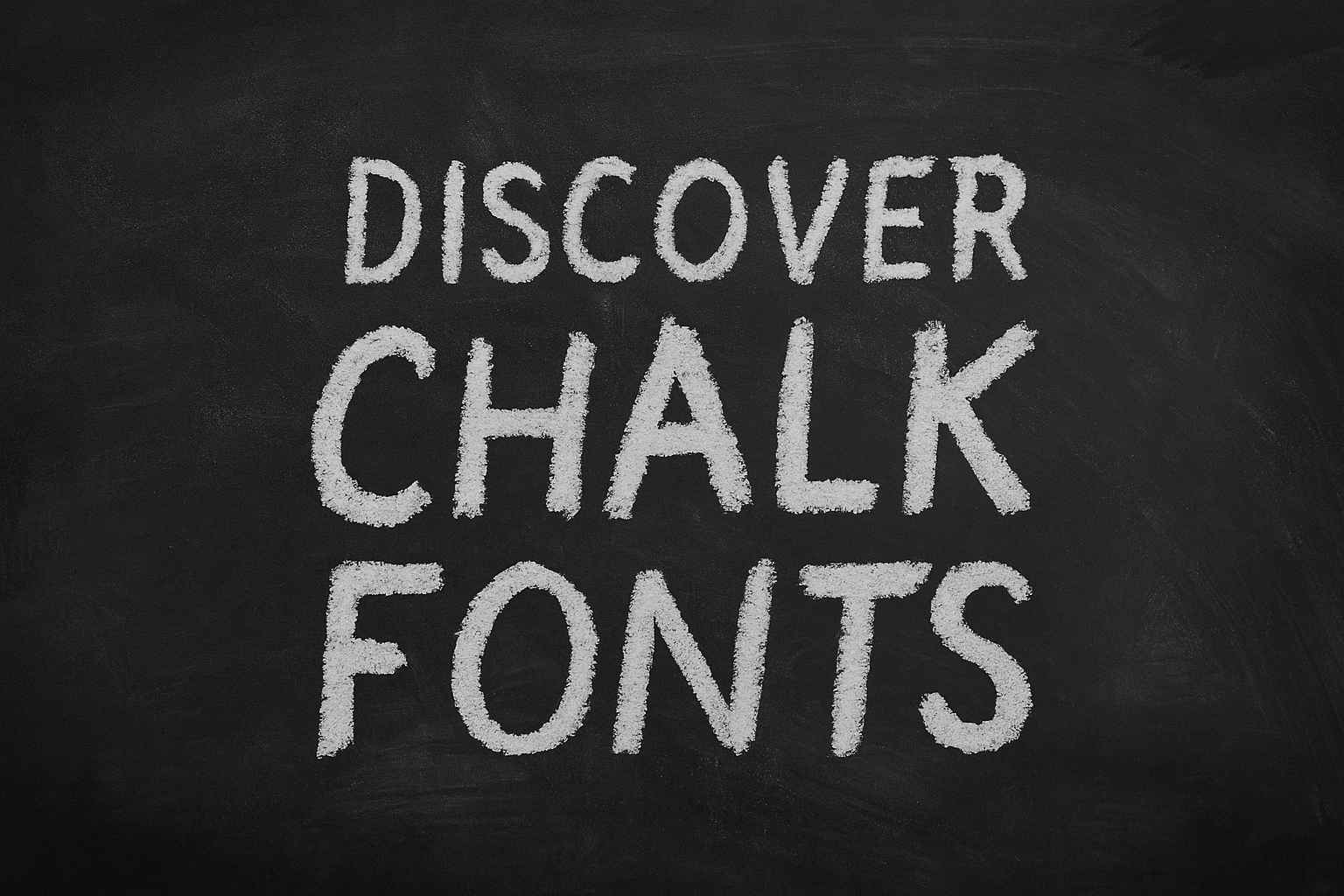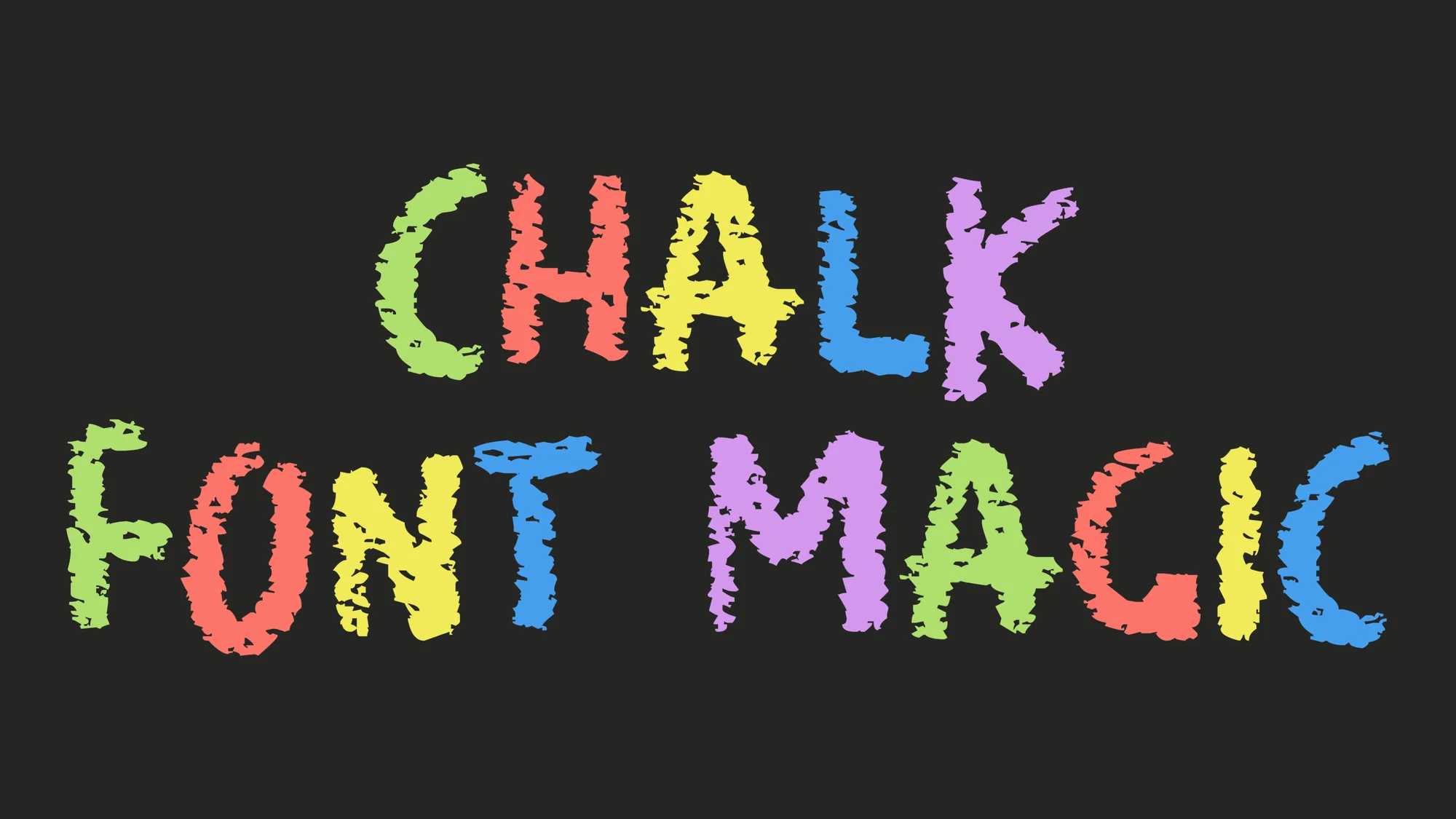
Discover Authentic Chalk Fonts and Chalkboard Effects for Creative Typography
Chalk fonts evoke nostalgia, charm, and a handmade feel. From café menus to classroom signs, these fonts bring warmth and personality to your designs. You can now achieve realistic chalkboard effects and handwritten chalk lettering online with ease.
What Makes a Chalk Font Authentic
A true chalkboard font features irregular strokes, rough edges, and subtle texture variations that mimic real chalk on slate. Many include grain or dust effects to simulate chalk residue, smudging, or fading. These small imperfections make the difference between a flat design and genuine chalk typography.
Classic Blackboard and Menu Style
This style uses bold and legible lettering on dark backgrounds to emulate restaurant boards, coffee shop menus, or school signs. Add faint chalk smudges or outlines to reinforce authenticity. A clean and balanced chalk text effect helps your message remain both readable and handcrafted.
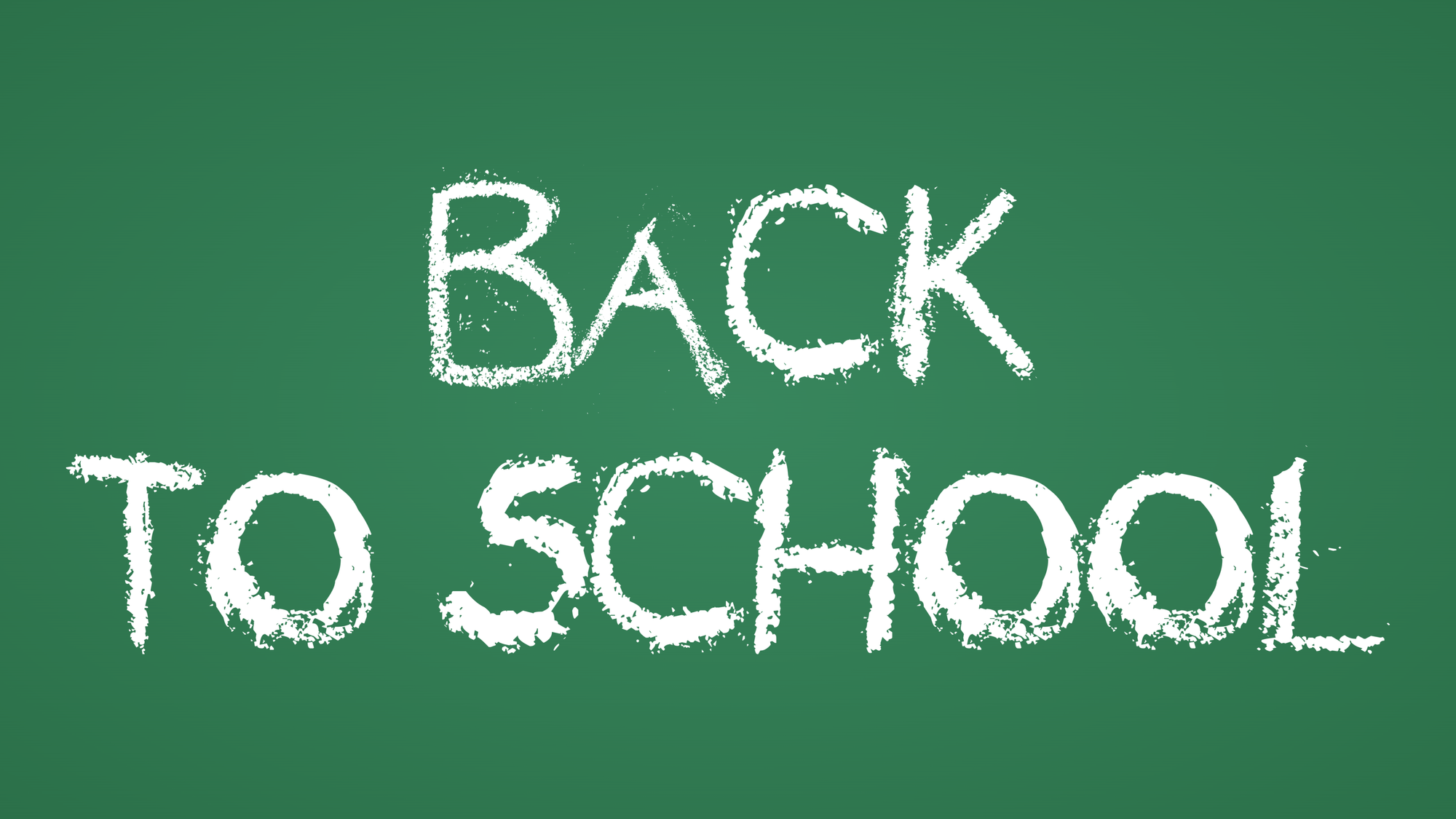
Hand Lettered and Vintage Chalk Designs
For a more expressive look, handwritten chalk fonts imitate freehand strokes with natural variations. Some artists prefer a vintage chalk font for a nostalgic and weathered style that recalls old blackboards and retro signage. Both approaches capture the warmth and creativity of real chalk art.
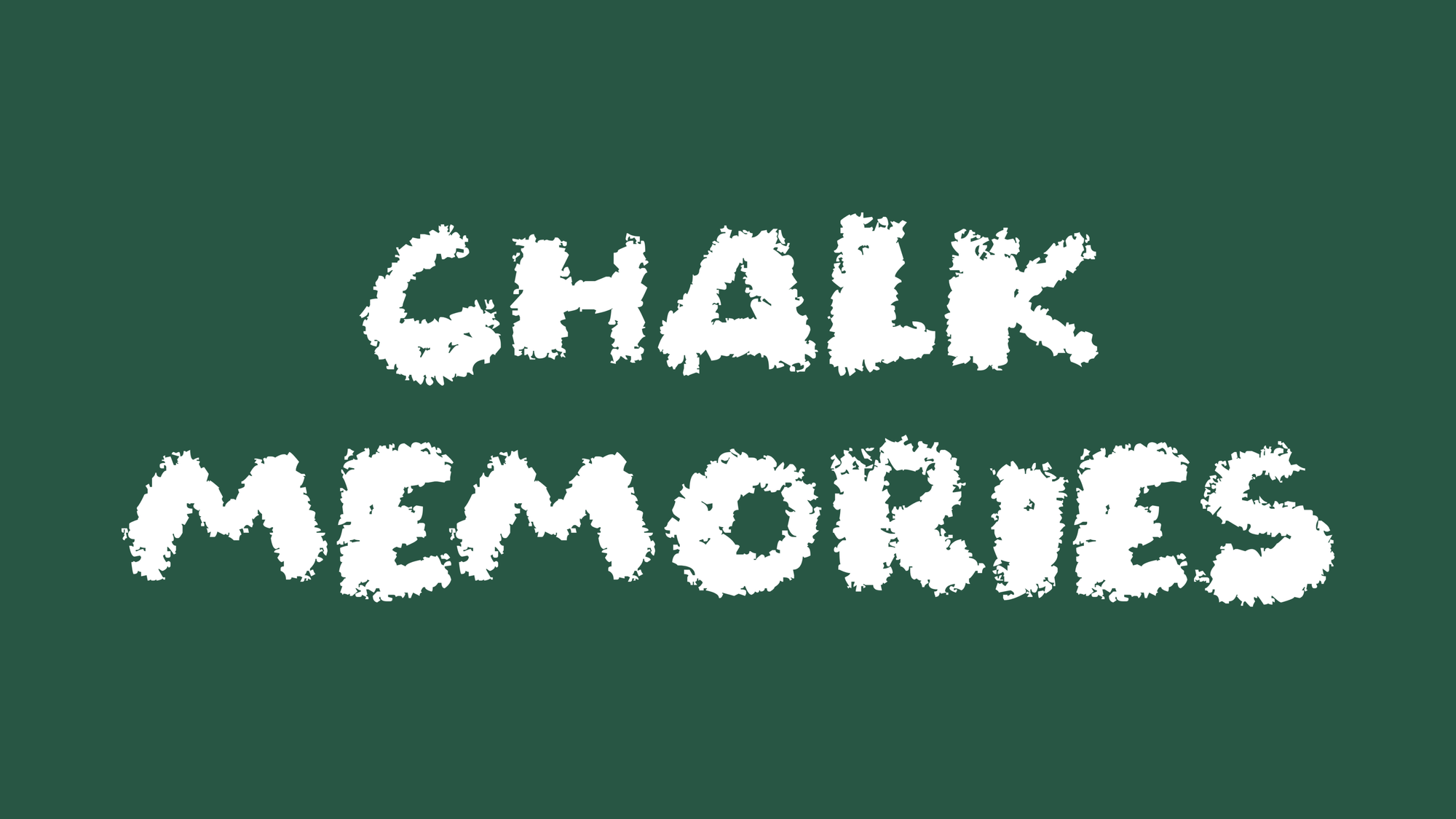
Colorful and Decorative Chalk Lettering
Modern chalk styles also explore color. A pastel or muted tone keeps the chalk texture while adding energy to the design. This variation works well for children’s decor, party invitations, or friendly branding that feels lighthearted and personal.
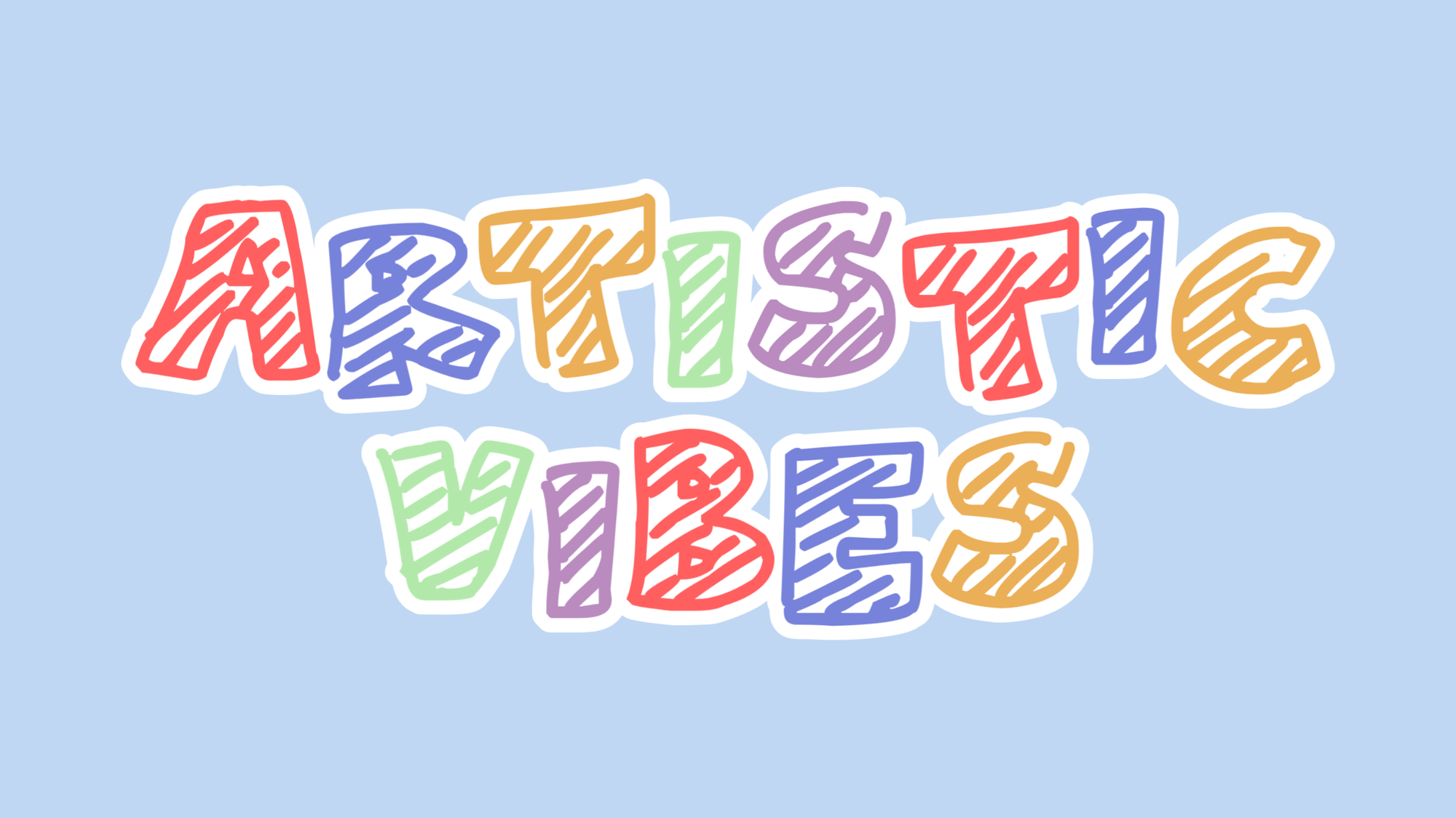
Warped Chalk Lettering
This variant exaggerates pressure and movement so letters look bent, stretched, and slightly off-baseline. Edges break into powdery fragments and the strokes vary in width, which creates a raw, energetic feel. A distorted chalk font works especially well on colorful gradients like blue to violet, as the high contrast keeps the texture readable. Keep spacing generous and apply only a subtle warp so the handmade vibe stays clear without losing legibility.
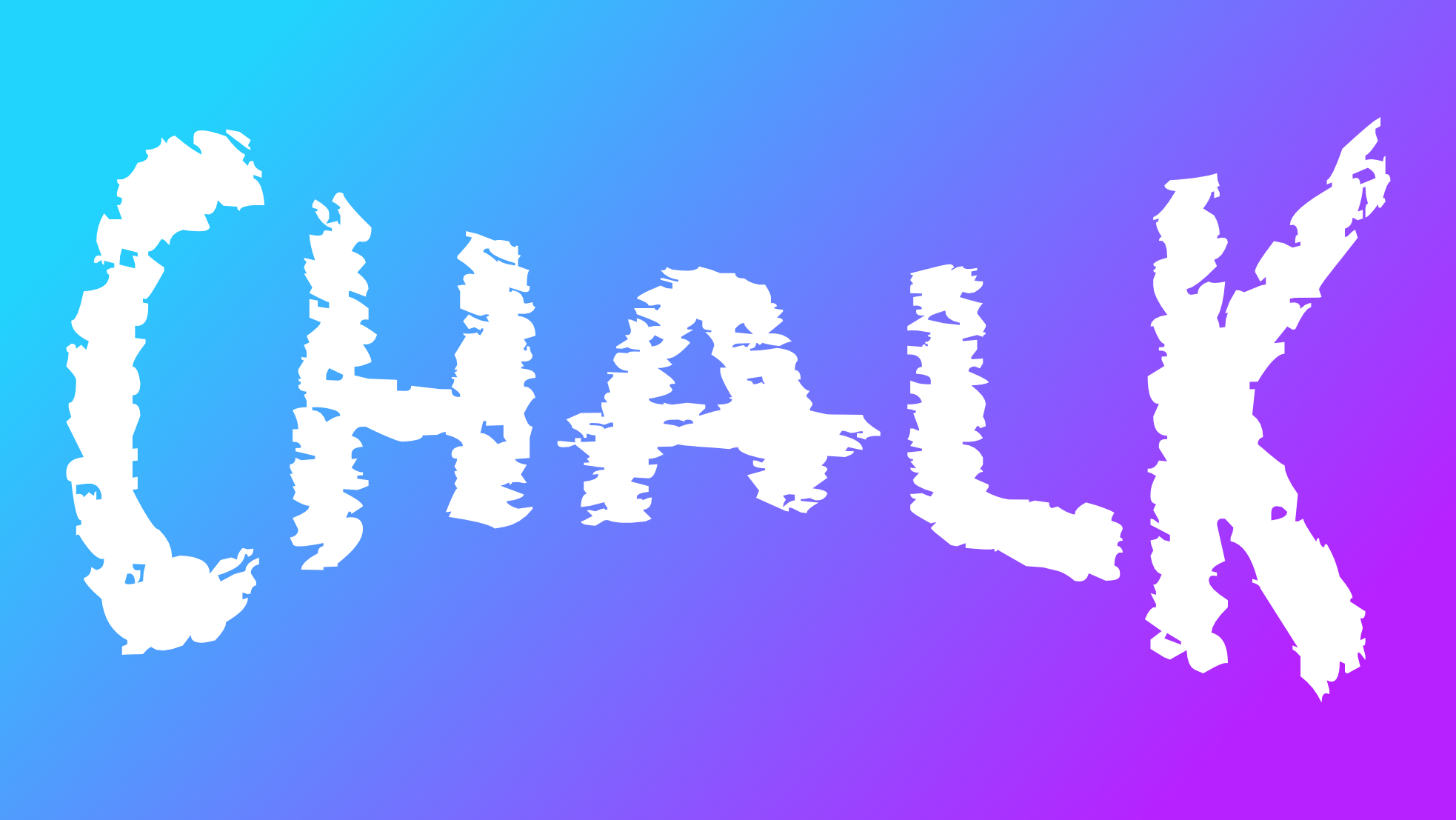
Conclusion
Using chalk fonts and chalkboard effects can turn simple typography into expressive, handcrafted artwork. Whether you prefer a realistic blackboard look or a creative colored version, this style combines nostalgia with originality.